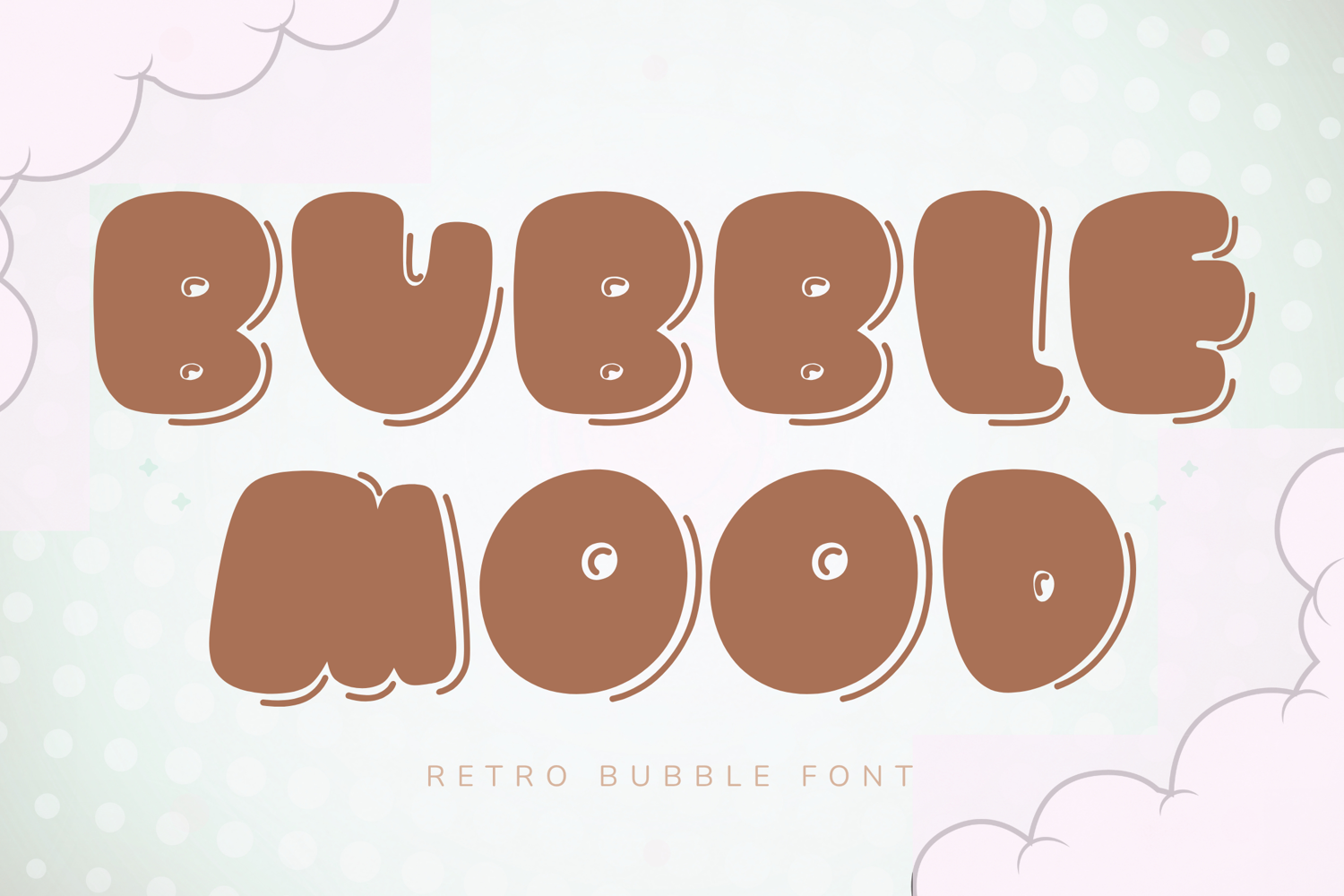
Bubble Mood - Retro Bubble Font
Bubble Mood – Retro Bubble Font
Bubble Mood is a playful retro bubble font inspired by dreamy Y2K aesthetics, groovy stickers, and nostalgic cartoon typography. With its chunky rounded shapes, soft puffy letterforms, and cute retro personality, this font instantly creates a fun and eye-catching vibe for creative projects.
The oversized bubble style combined with tiny decorative details gives the font a sweet vintage mood while still feeling modern and trendy for today’s aesthetic market.
Key Features:
Chunky retro bubble style
Puffy rounded letterforms
Fun playful aesthetic
Bold display font
Uppercase letters
Numbers & punctuation
Cute decorative details
High readability
Brand Mood:
Cute
Playful
Retro
Puffy
Sweet
Trendy
Fun
Design Style:
Bubble Mood combines retro bubble typography with soft modern aesthetics to create a font that feels nostalgic, trendy, and adorable at the same time. Its thick rounded forms make every word feel playful and expressive while staying highly readable.